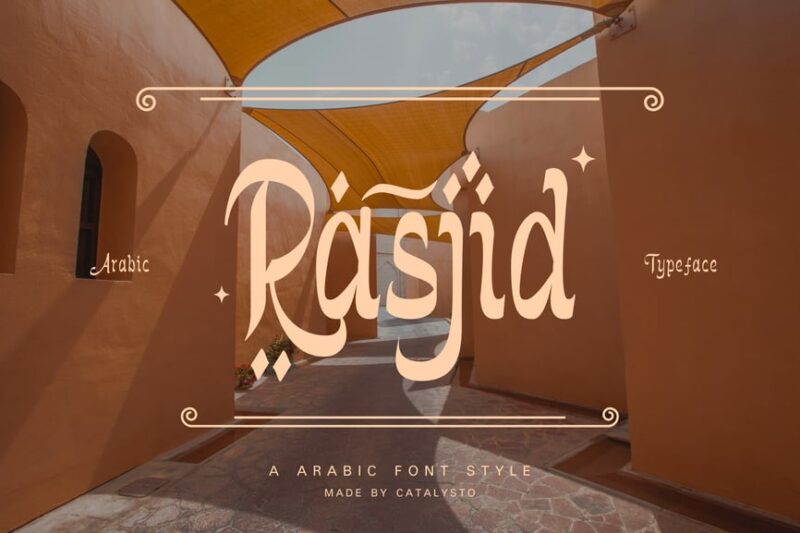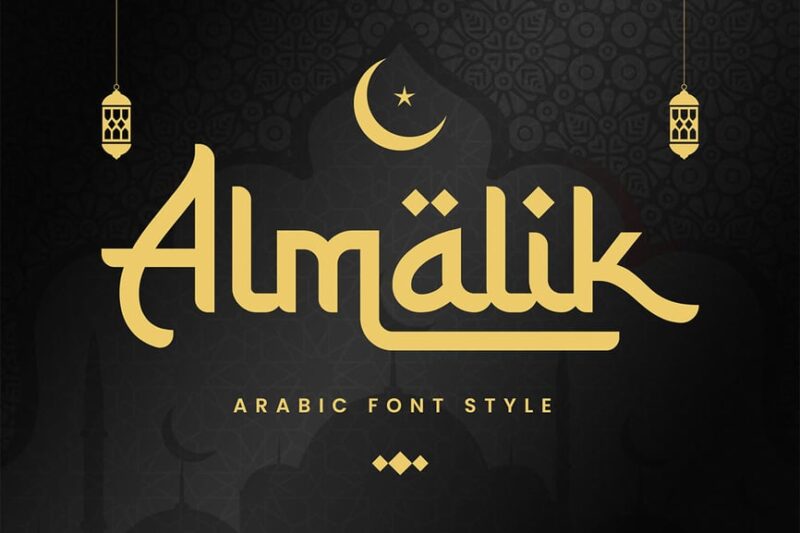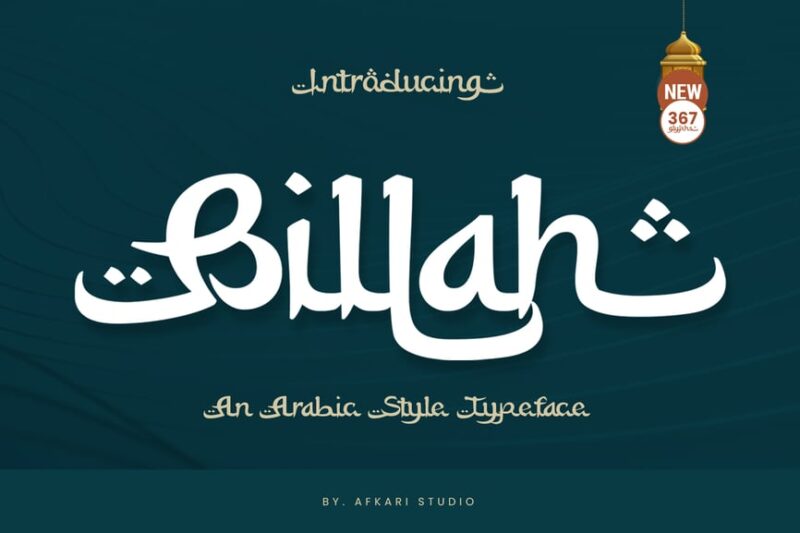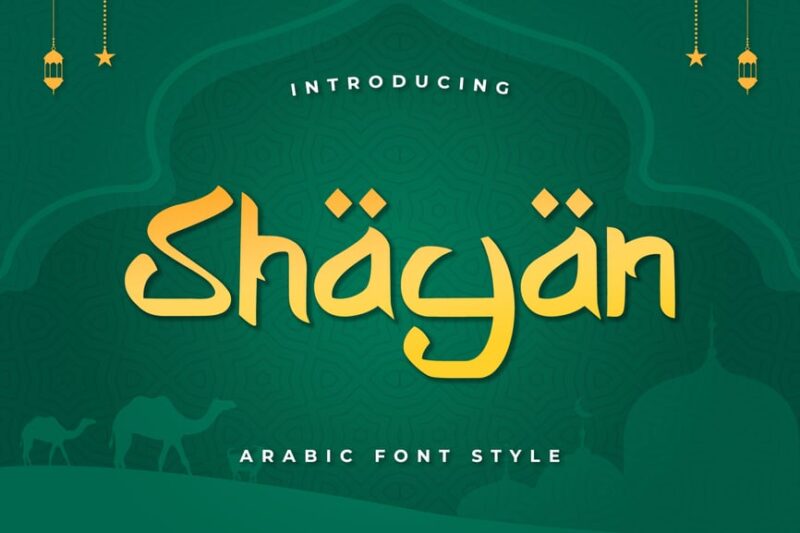
The flowing curves of Arabic calligraphy have mesmerized artists and designers for centuries. There’s something almost magical about the way Arabic letterforms dance across a page, each stroke purposeful yet graceful, creating a visual rhythm that speaks to the soul even before you understand the words.
In today’s global design landscape, Arabic fonts have become increasingly popular not just for Arabic-language projects, but for any design seeking to capture that distinctive Middle Eastern aesthetic. From wedding invitations to luxury brand logos, these typefaces bring an air of sophistication and cultural richness that’s hard to replicate with any other style.
Cultural Sensitivity Note: We want to acknowledge our deep respect for Arabic culture and language. While we’ve carefully curated these fonts to capture the beautiful aesthetic of Arabic typography, we recognize that some may not represent the most authentic traditional forms. We’ve aimed to find fonts that honor and reflect the elegance of Arabic design while being accessible for various design projects.
In this comprehensive guide, we’ll explore the most stunning Arabic fonts available in 2026, dive into what makes Arabic typography so captivating, and share expert tips on how to use these fonts effectively in your designs.
The Most Enchanting Arabic Fonts of 2026
Let’s dive into our carefully curated collection of Arabic fonts that perfectly capture the essence of Middle Eastern design tradition:
Yasin
Yasin is an exquisite Arabic decorative font that brings Islamic calligraphy to life. Its intricate curves and flourishes make it perfect for creating stunning Arabic logos and designs with a traditional yet contemporary flair.
Arabico
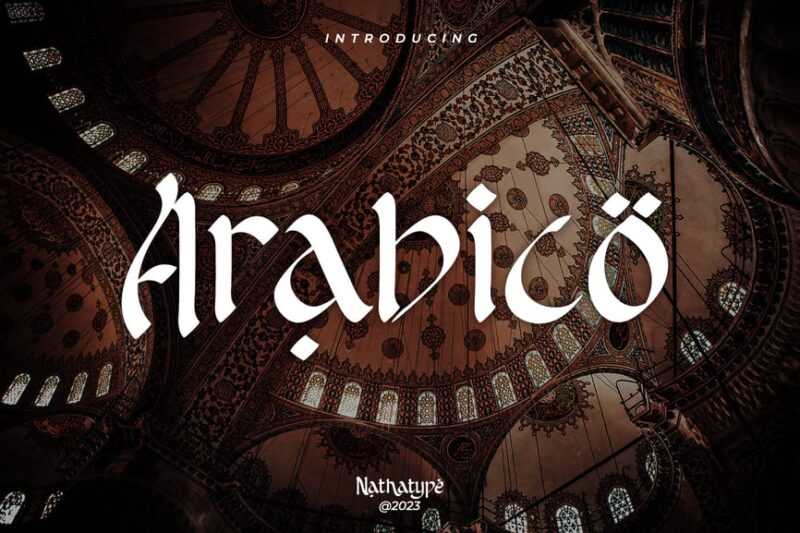
Arabico is a versatile Arabic style font that captures the essence of Middle Eastern typography. Its elegant strokes and balanced proportions make it ideal for both modern and traditional Arabic designs, offering a fresh take on classic calligraphy.
Aljadien
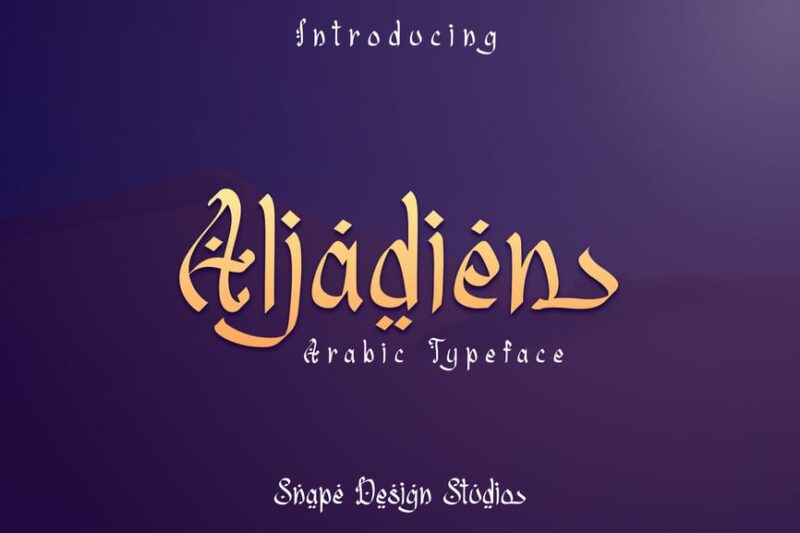
Aljadien is a sophisticated Arabic typeface that seamlessly blends Arab and Urdu influences. This versatile font is perfect for creating elegant designs with a touch of cultural authenticity, suitable for both digital and print applications.
Shalimah
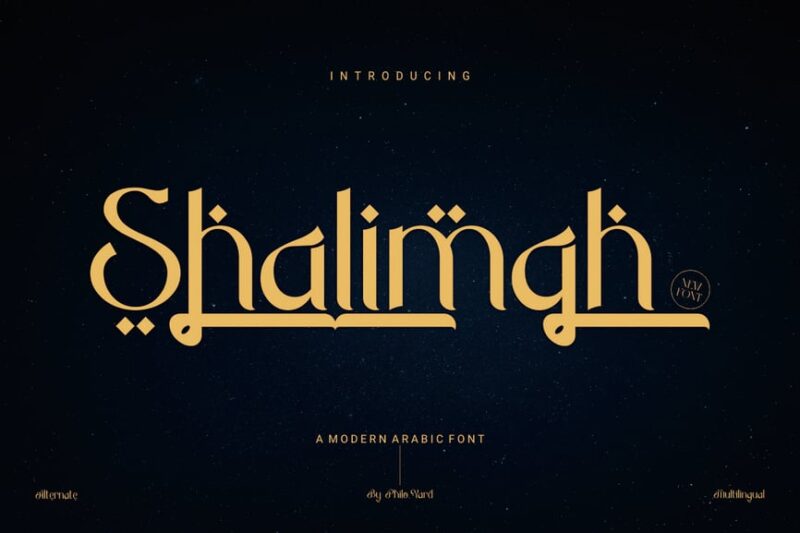
Shalimah is a modern Arabic serif font that infuses Arabian charm with a playful twist. Its unique character makes it perfect for creating eye-catching designs that balance traditional Arabic aesthetics with contemporary flair.
Mahabbah
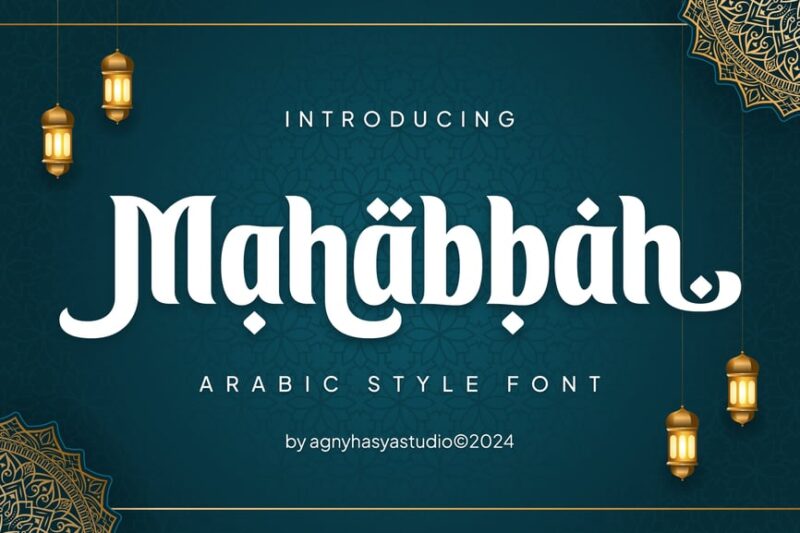
Mahabbah is a stunning Arabic style font that embodies the spirit of Islamic calligraphy. Its decorative nature makes it ideal for Ramadan-themed designs and Islamic projects, offering a perfect blend of tradition and modernity.
Ajizzah
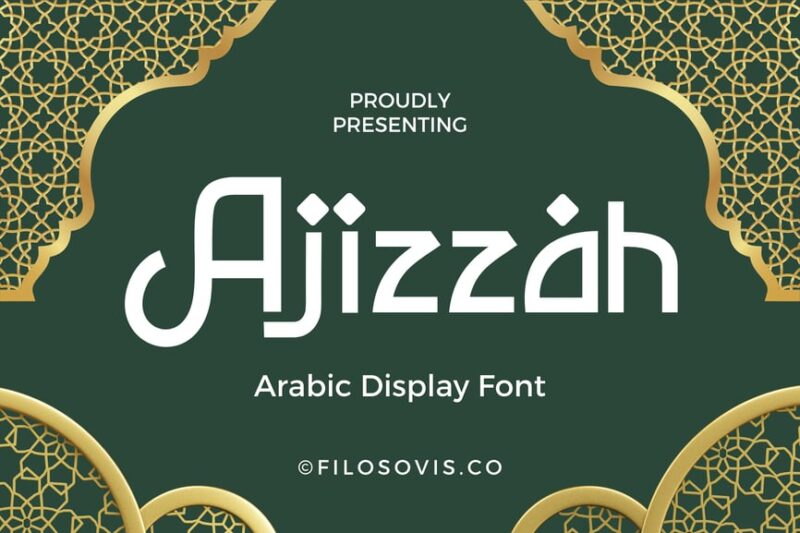
Ajizzah is a captivating Arabic display font that shines in Ramadan Kareem designs. Its decorative qualities and attention to detail make it perfect for creating standout headlines and logos with an authentic Arabic feel.
Musandam
Musandam is a handwritten script font that captures the essence of Arabic calligraphy. Its fluid strokes and natural look make it ideal for Ramadan Kareem greetings and designs that require an authentic, hand-crafted Arabic aesthetic.
Sabana
Sabana is a versatile Arabic font that combines script and decorative styles. Its Arabian-inspired design makes it perfect for Muslim-themed projects, offering a beautiful balance between traditional calligraphy and modern typography.
Rochayati
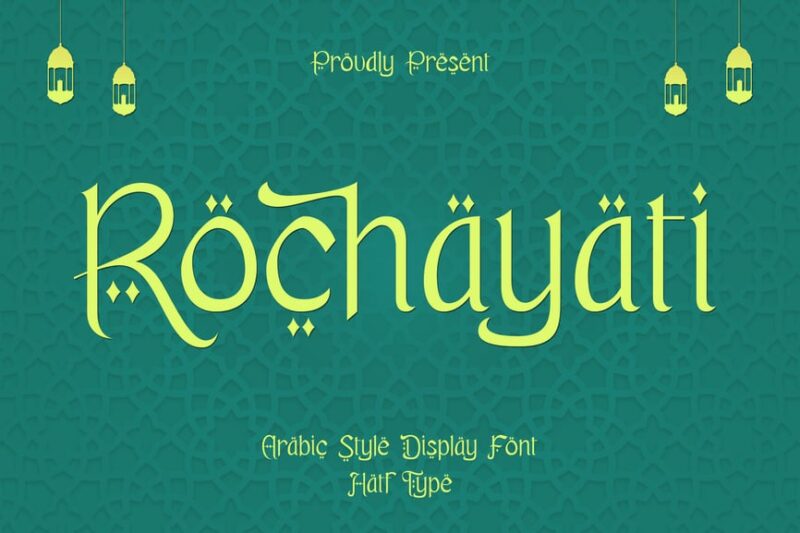
Rochayati is a decorative font that draws inspiration from Islamic and ethnic design elements. Its unique character makes it ideal for creating striking headlines and logos with a cultural flair, perfect for projects that require an authentic Middle Eastern touch.
Caliyana
Caliyana is a creative Arabic display font that pushes the boundaries of traditional calligraphy. Its innovative design makes it perfect for modern Arabic branding and advertising, offering a fresh perspective on Middle Eastern typography.
The next time you see Arabic calligraphy – whether on a mosque wall, a book cover, or a modern logo – take a moment to appreciate the incredible artistry and cultural heritage flowing through those elegant curves. That’s the power of truly great typography: it connects us across cultures and centuries through the universal language of beauty.